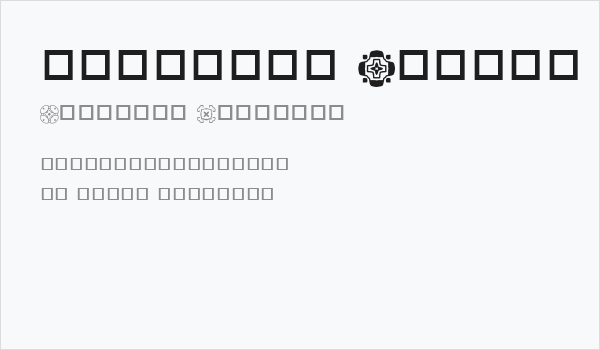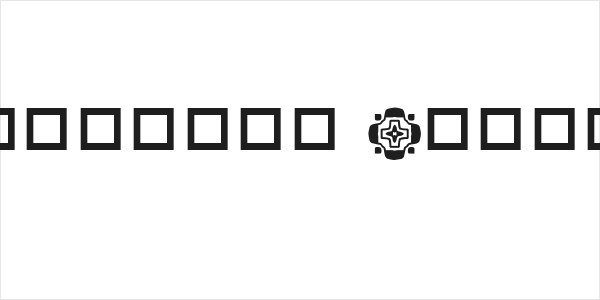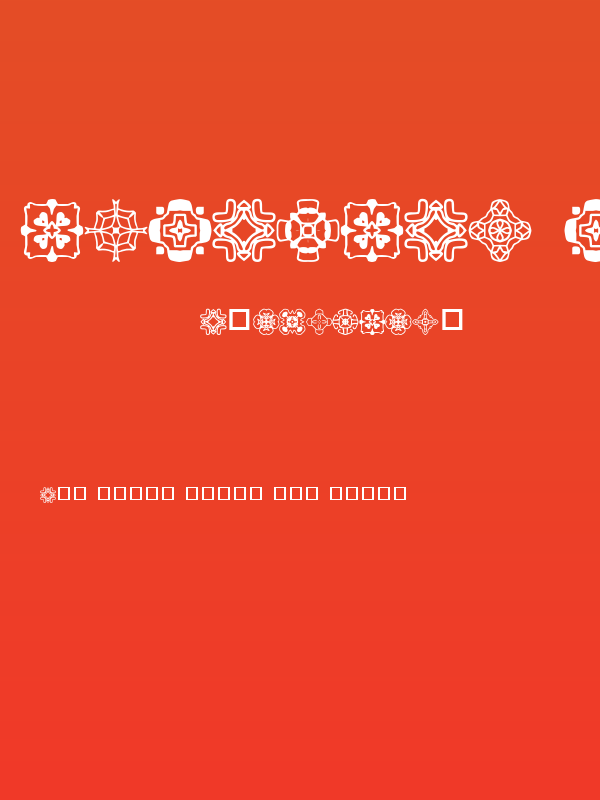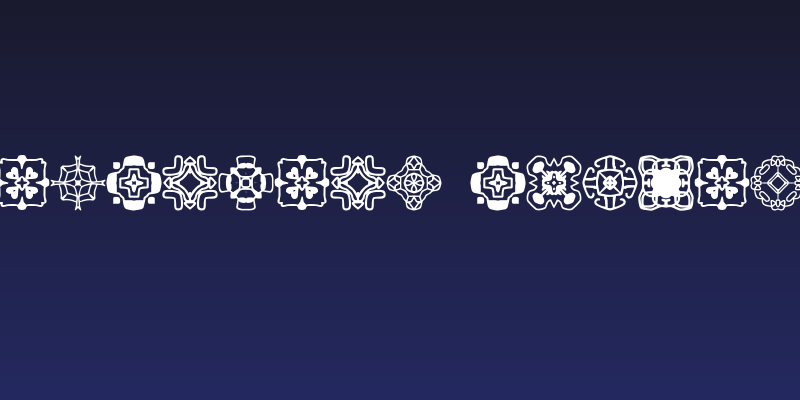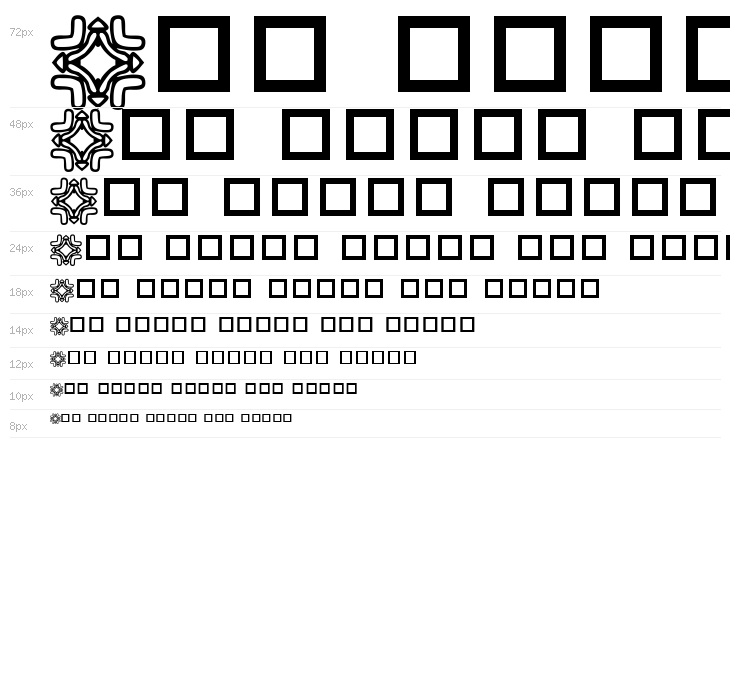
auntbats Normal Font
auntbats Normal Description
This is not a traditional font but rather a collection of decorative symbols and patterns. Each character is represented by a unique ornamental design, featuring intricate geometric shapes and symmetrical patterns. The designs are bold and eye-catching, making them suitable for decorative purposes rather than text-based communication. The symbols vary in complexity, with some featuring simple shapes and others showcasing elaborate details. This collection is ideal for adding a decorative touch to projects that require a unique and artistic flair.
Overall StyleDecorative
Use CaseLogos, Artistic designs, Decorative elements
Proposed ProjectsIdeal for decorative borders, artistic designs, scrapbooking, and creative projects requiring ornamental elements.